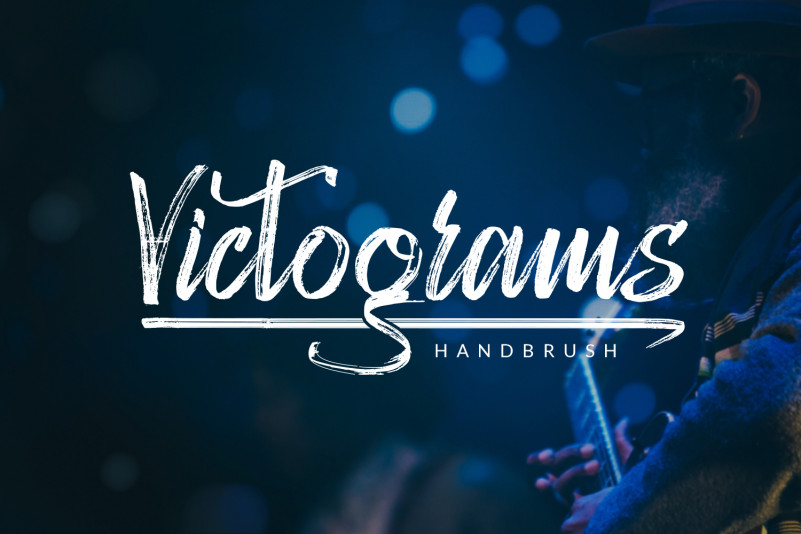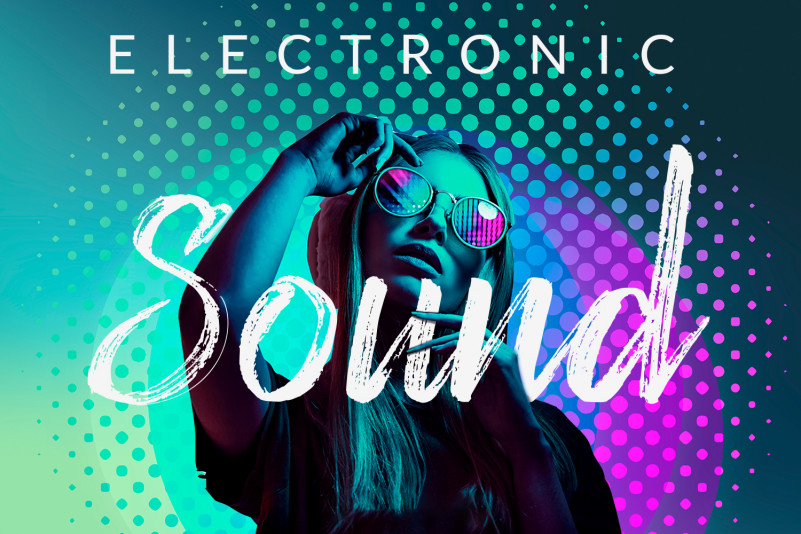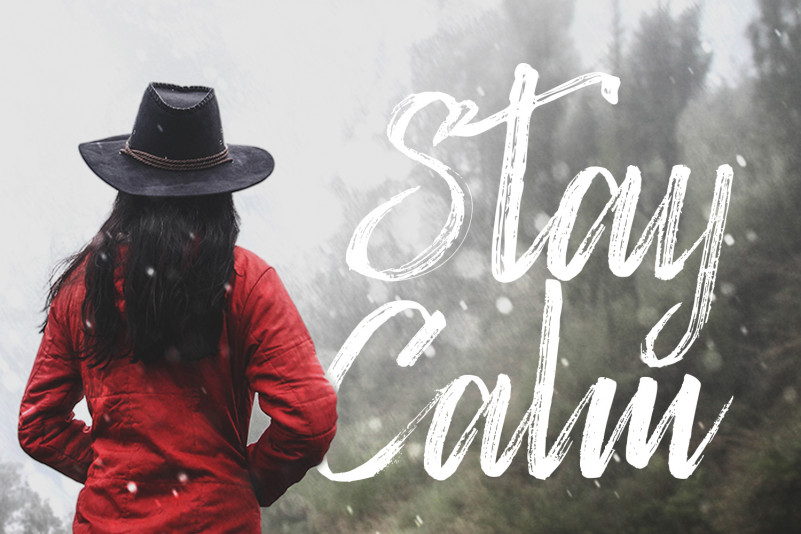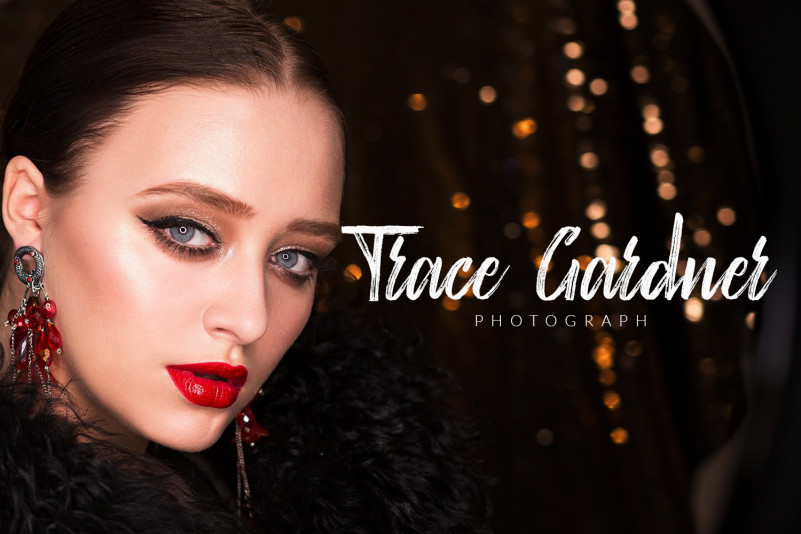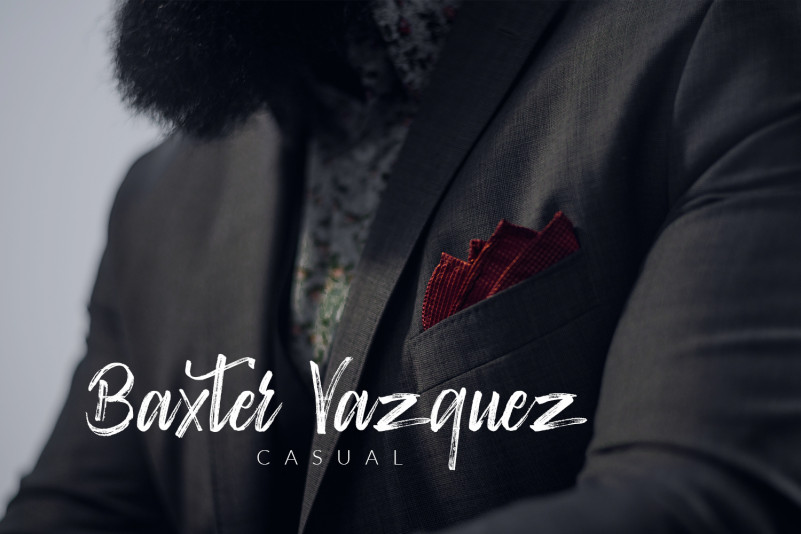
Victograms Handbrush Font
Victograms Handbrush Font is a luxury hand brush typeface, will be suitable for any projects such as logo’s, branding projects, homeware designs, product packaging, mugs, quotes, posters, shopping bags, t-shirts, book covers, name card, invitation cards, greeting cards, label, photography, watermark, special events, and all your other lovely projects that need beautiful handwriting taste.